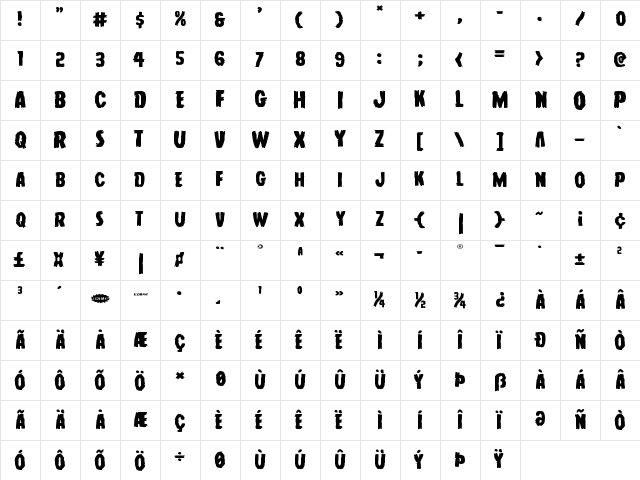
Young Frankenstein Expanded Expanded
Design Context for Young Frankenstein Expanded Typeface
Young Frankenstein Expanded is a composed and adaptable typeface that performs quietly and consistently across a wide range of design contexts.